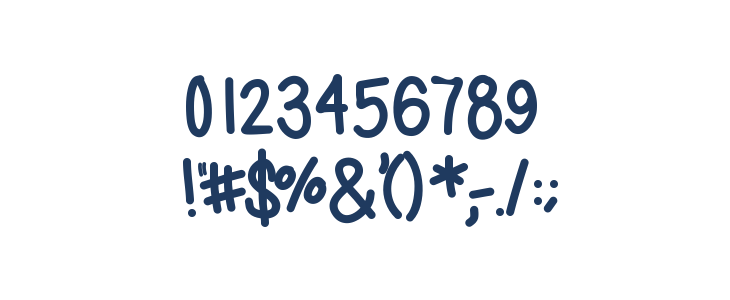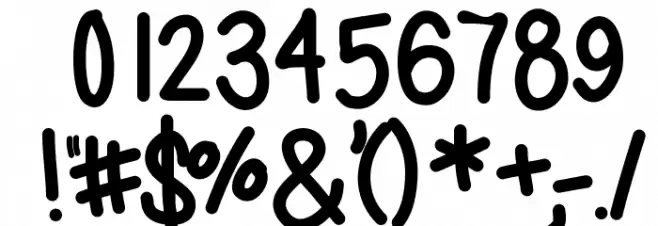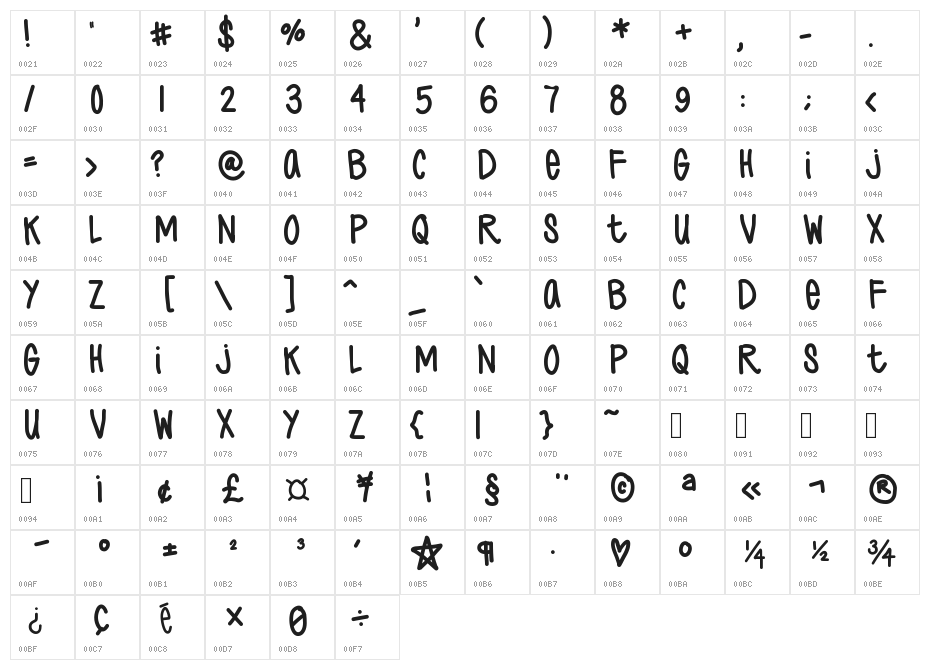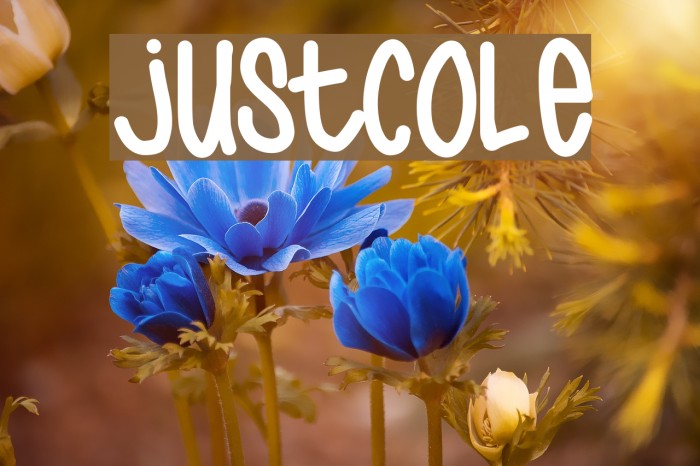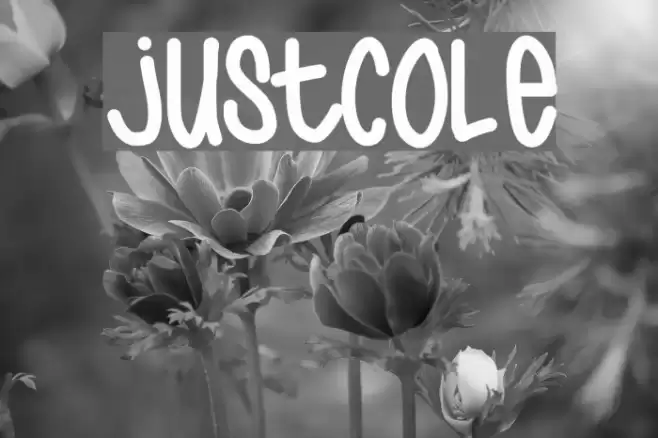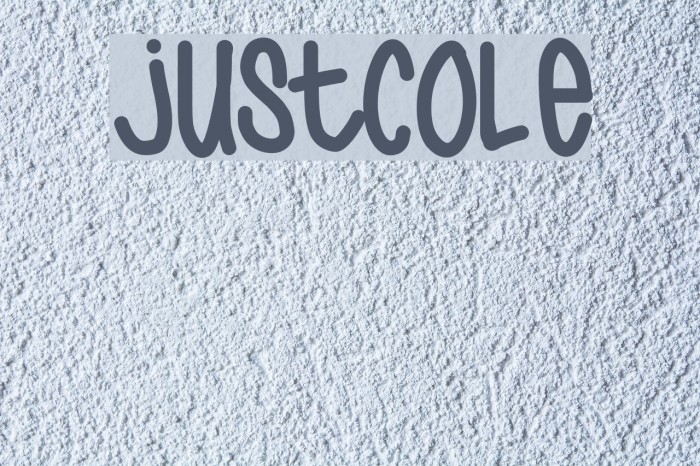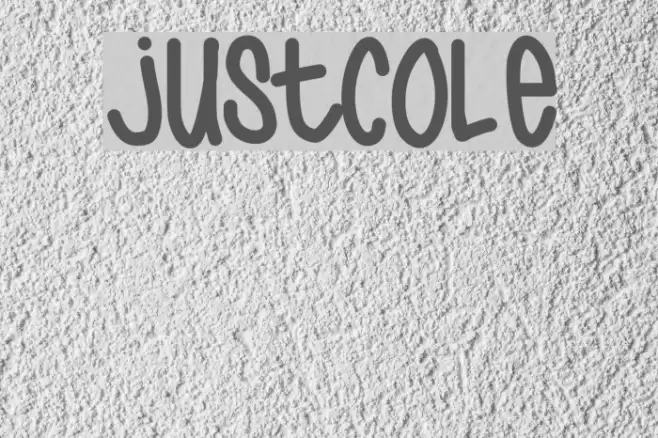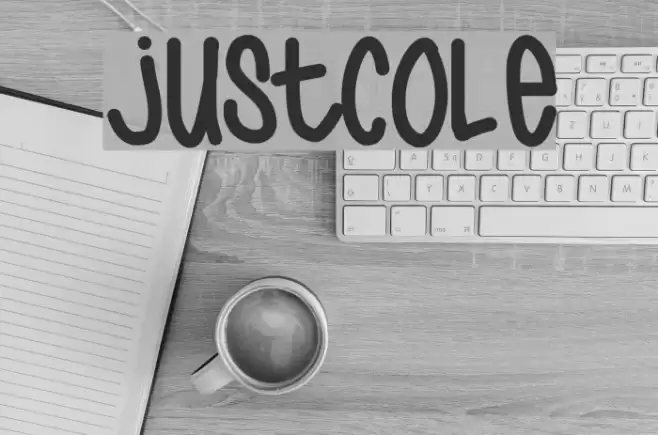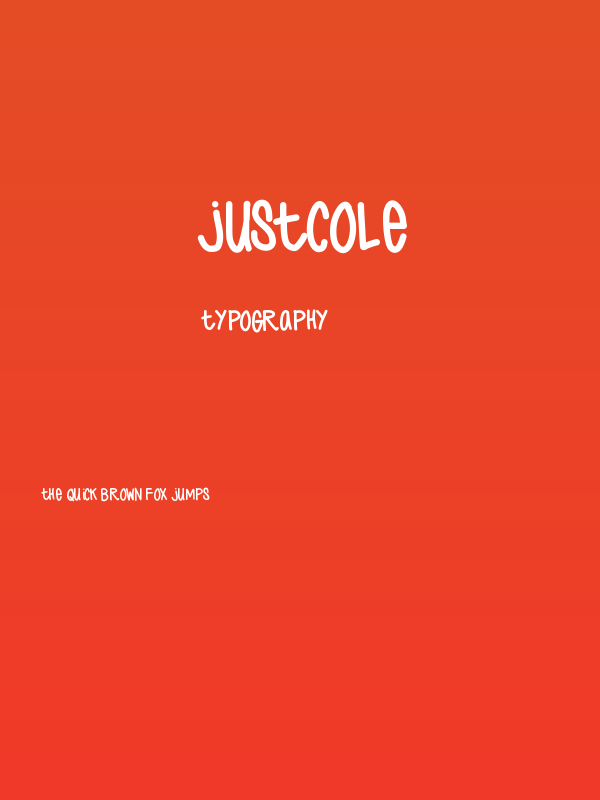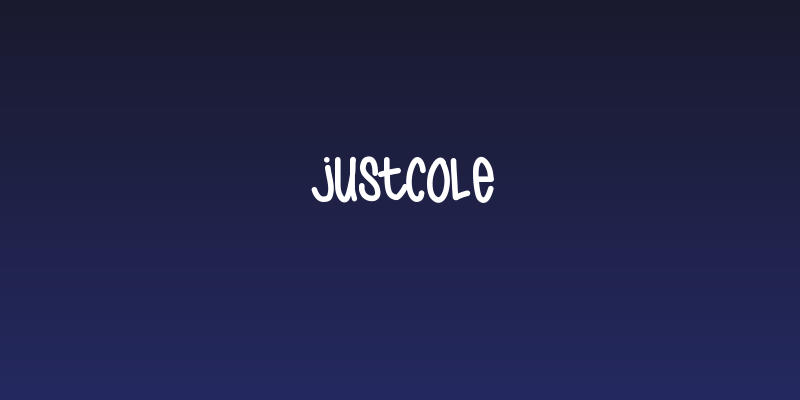
JustCole Font
JustCole Description
This playful and bold font features a handwritten style with rounded edges and a casual, friendly appearance. The characters are slightly irregular, adding a whimsical touch that makes it stand out. The uppercase and lowercase letters maintain a consistent style, with a smooth flow that enhances readability. Numbers and special characters are designed to match the overall aesthetic, ensuring a cohesive look across all text elements. This font's unique personality makes it ideal for projects that require a fun and approachable vibe.
Overall StylePlayful
Proposed ProjectsIdeal for children's books, greeting cards, playful branding, and social media graphics.